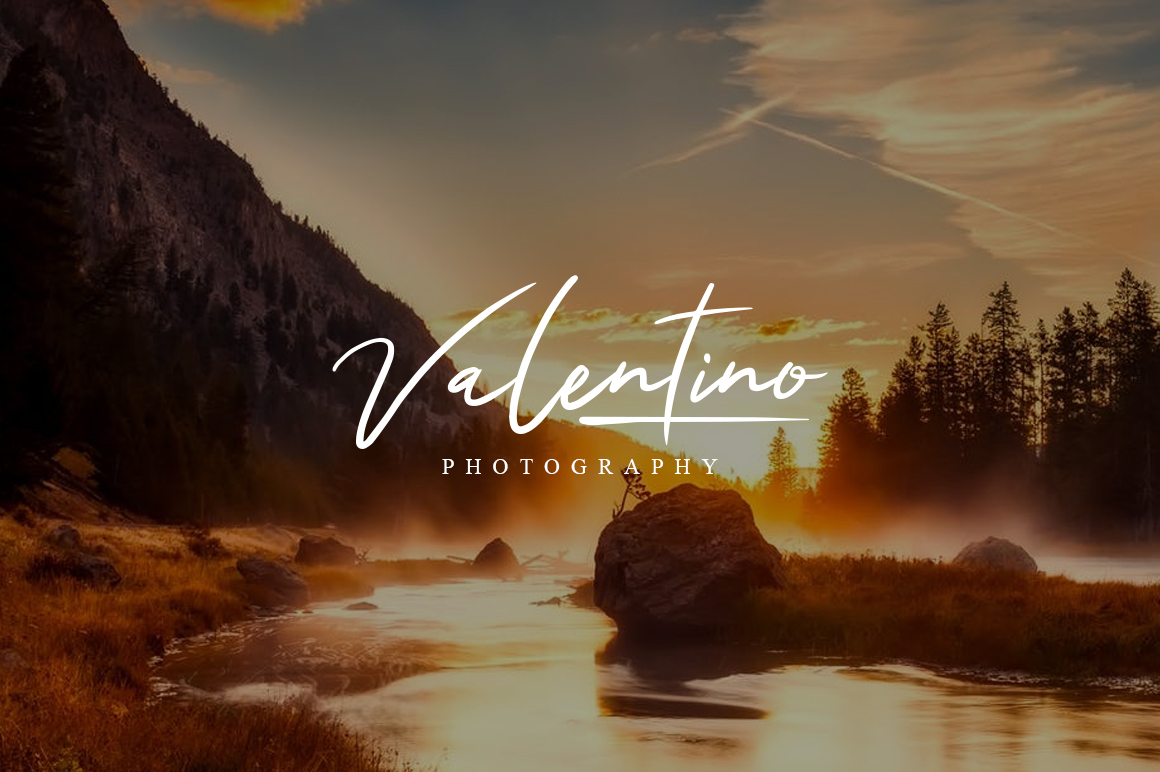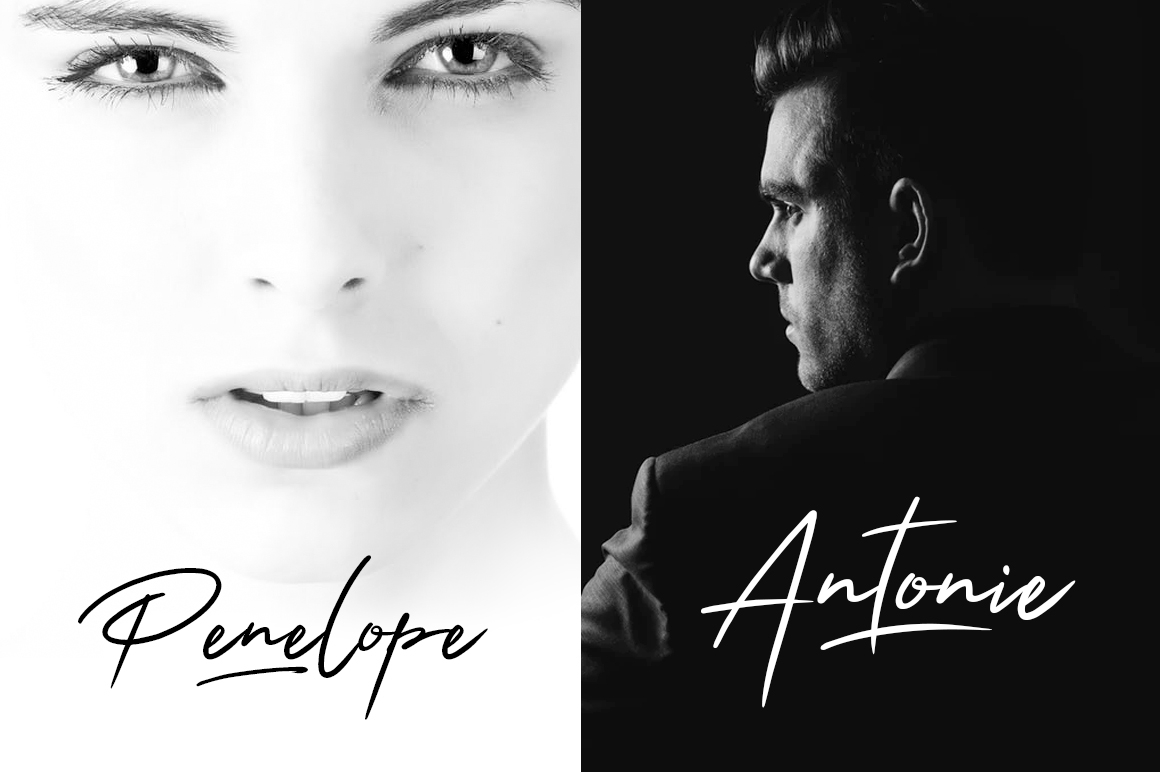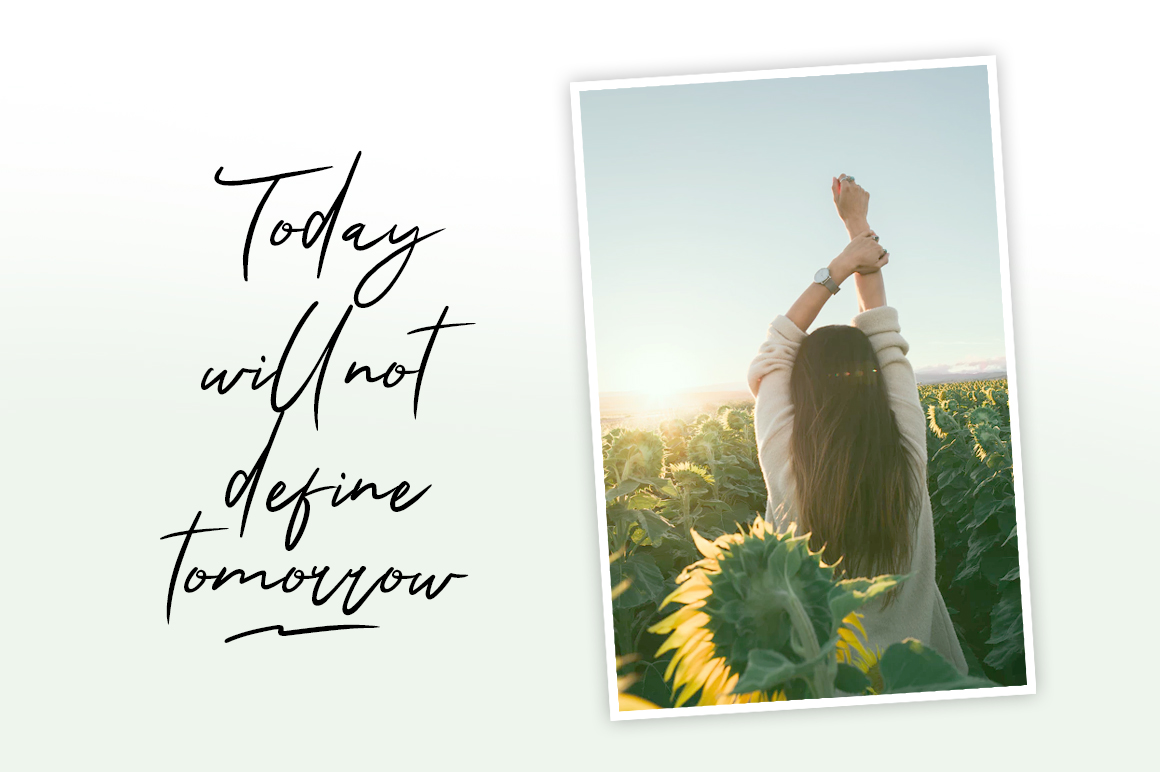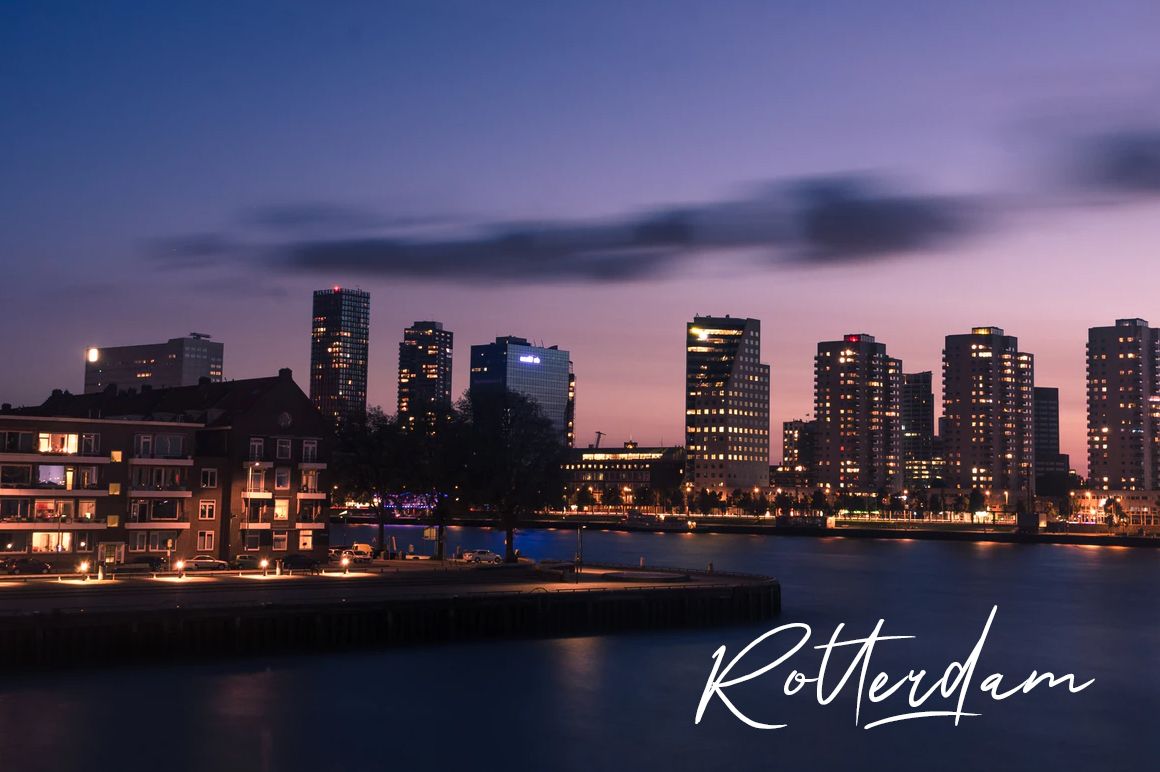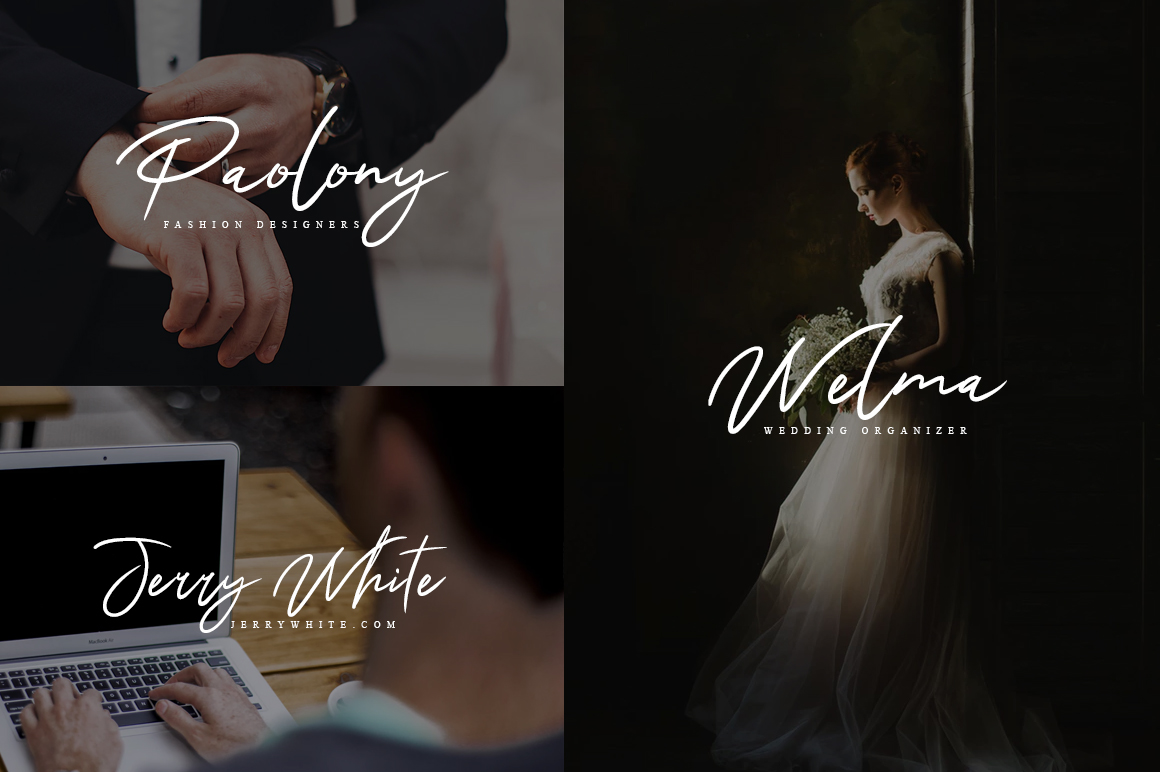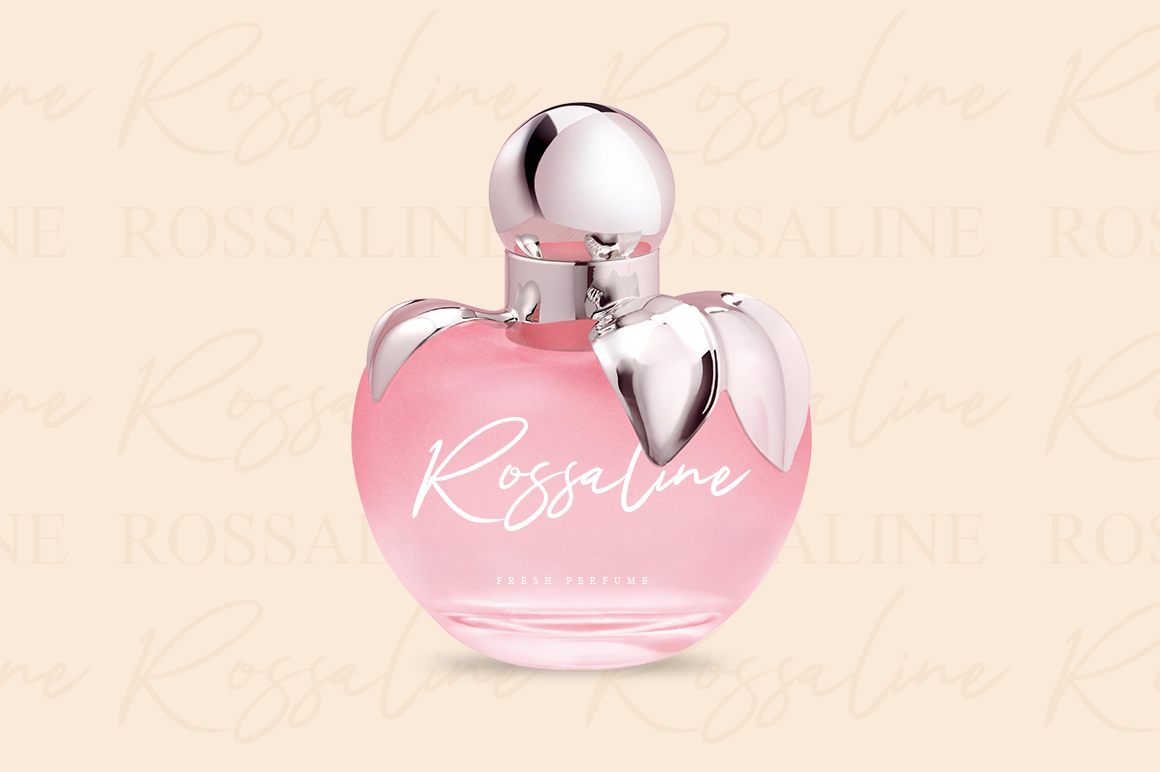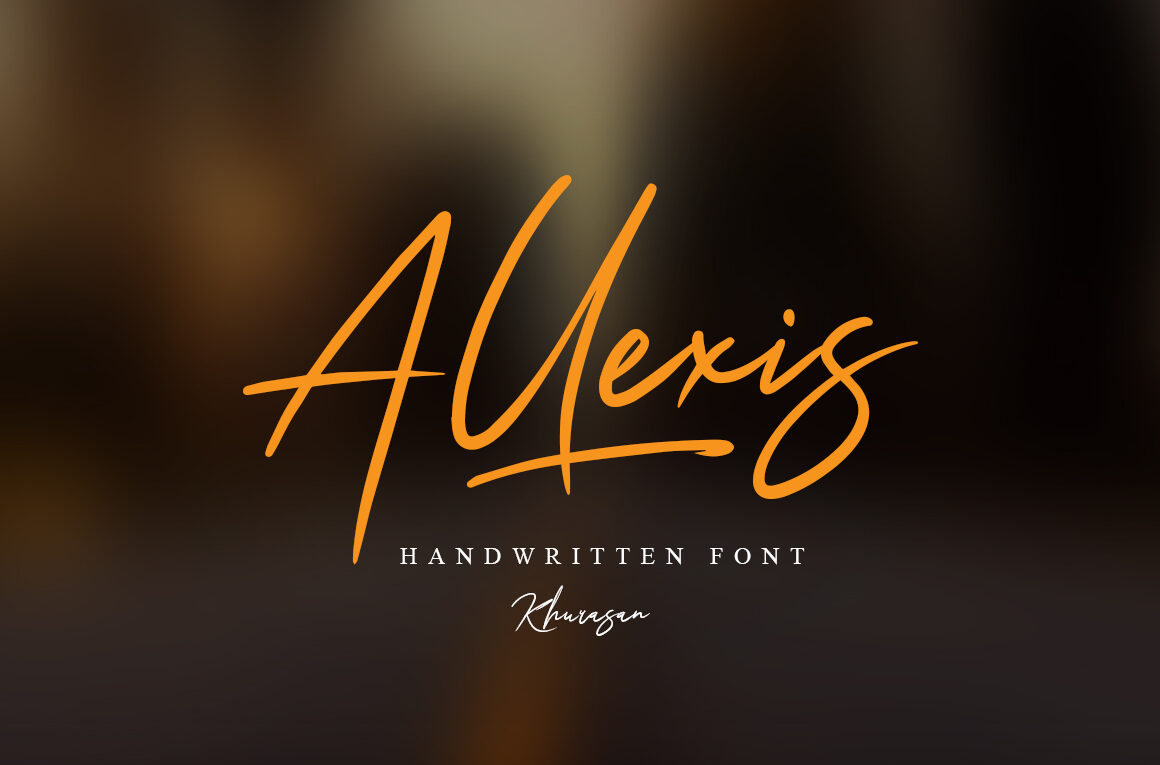
Introducing Allexis Font: Elevate Your Designs with Elegance and Authenticity
In the world of typography, fonts play a pivotal role in defining the aesthetic and tone of any design project. Whether you’re crafting a brand’s identity, working on an editorial piece, or simply exploring your creativity, the right font can make all the difference. This is where Allexis Font comes into play—a gorgeous script font designed to infuse your projects with a touch of casual elegance and authenticity.
The Charm of Allexis Font
Allexis is not just another script font; it’s a signature style that brings a unique blend of sophistication and laid-back charm. Its fluid strokes and graceful letterforms make it an ideal choice for designers looking to add a personal touch to their work. Whether you’re aiming for a luxurious feel or a more approachable vibe, Allexis Font adapts seamlessly, making it versatile for various design applications.
Key Features of Allexis Font
- Casual Elegance: Allexis Font embodies a perfect balance of elegance and informality, making it suitable for projects that require a refined yet approachable look.
- Authentic Vibe: Its signature style lends an authentic and personal feel to your designs, helping you connect with your audience on a more intimate level.
- Versatility: From logotypes to editorials, Allexis Font proves to be a versatile tool in the hands of designers, adapting to various contexts with ease.
- Readability: Despite its script nature, Allexis maintains a high level of readability, ensuring your message is conveyed clearly and effectively.
Perfect Applications for Allexis Font
Allexis Font’s unique characteristics make it suitable for a wide range of design projects. Here are some of the ideal applications:
- Branding: Give your brand a distinctive voice with Allexis. Its authentic vibe and elegance make it perfect for creating memorable brand identities.
- Editorials: Add a touch of sophistication to your articles, magazines, or blogs. Allexis Font works wonders in enhancing the visual appeal of editorial content.
- Logotypes: For businesses looking for a unique logotype, Allexis offers a stylish and impactful solution that stands out.
- Invitations and Cards: Whether it’s a wedding invitation, a birthday card, or any other special occasion, Allexis Font adds a touch of class and personalization.
Tips for Using Allexis Font Effectively
To maximize the potential of Allexis Font in your designs, consider the following tips:
- Pair it Wisely: Combine Allexis with complementary fonts to create visual hierarchy and enhance readability.
- Adjust Size and Color: Experiment with different sizes and colors to highlight key elements and maintain visual interest.
- Use it Sparingly: While Allexis is beautiful, using it sparingly can make it more impactful. Consider using it for headings or key phrases.
Allexis Font is a remarkable addition to any designer’s toolkit. Its unique blend of casual elegance and authenticity makes it an ideal choice for a wide range of projects. By incorporating Allexis into your designs, you not only elevate their aesthetic appeal but also give them a personal touch that resonates with audiences. Whether you’re a professional designer or a crafting enthusiast, Allexis Font is sure to inspire and enhance your creative endeavors.